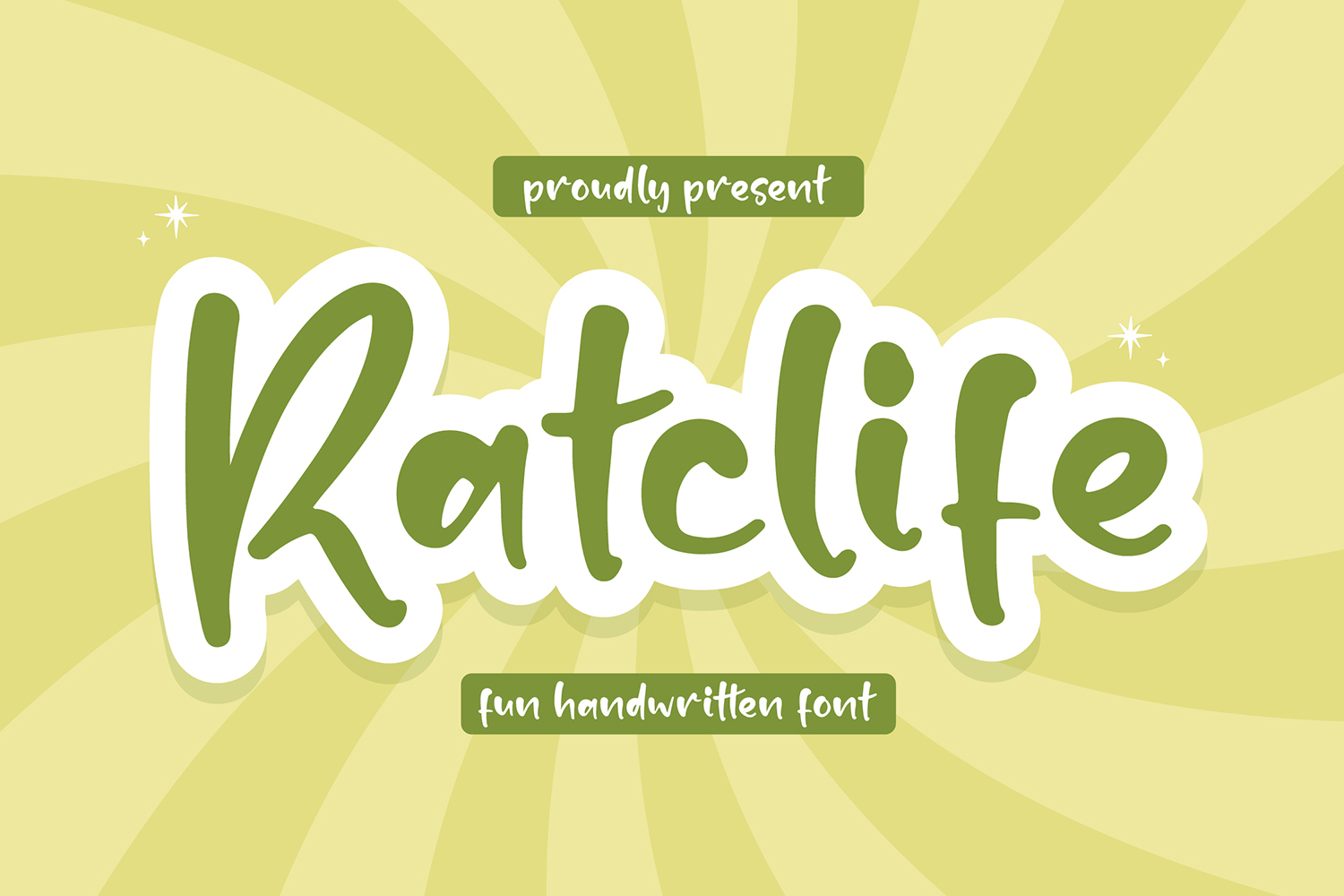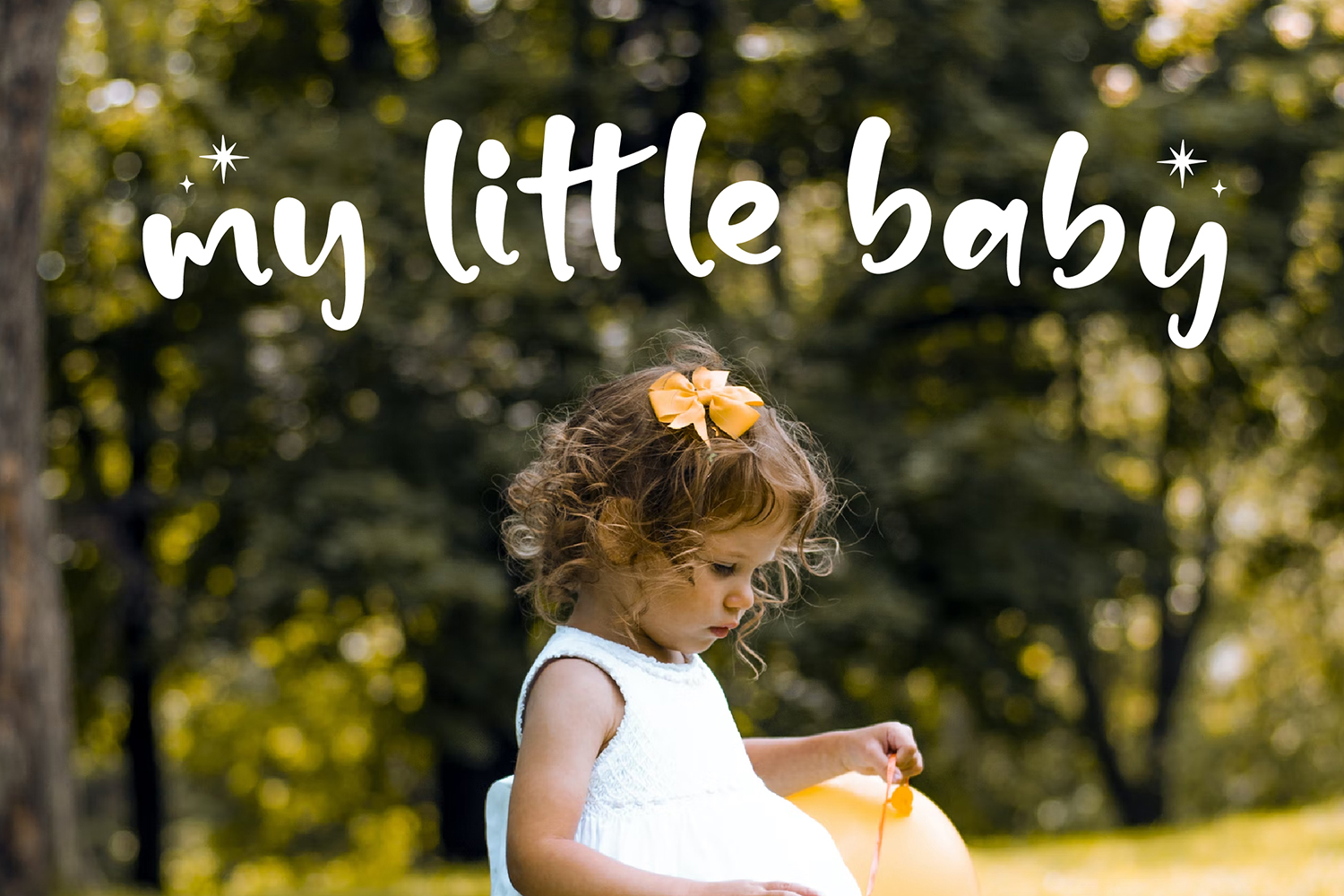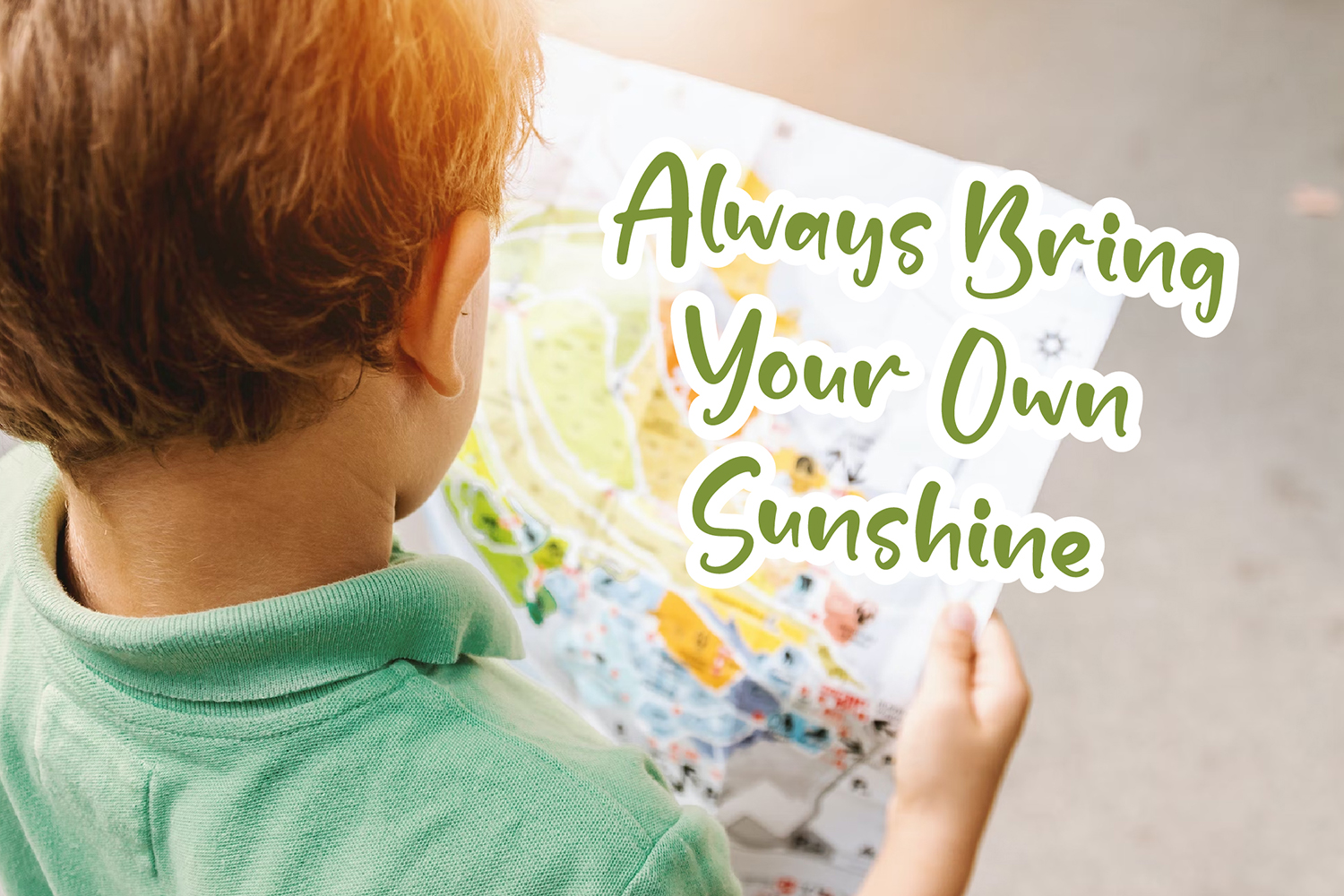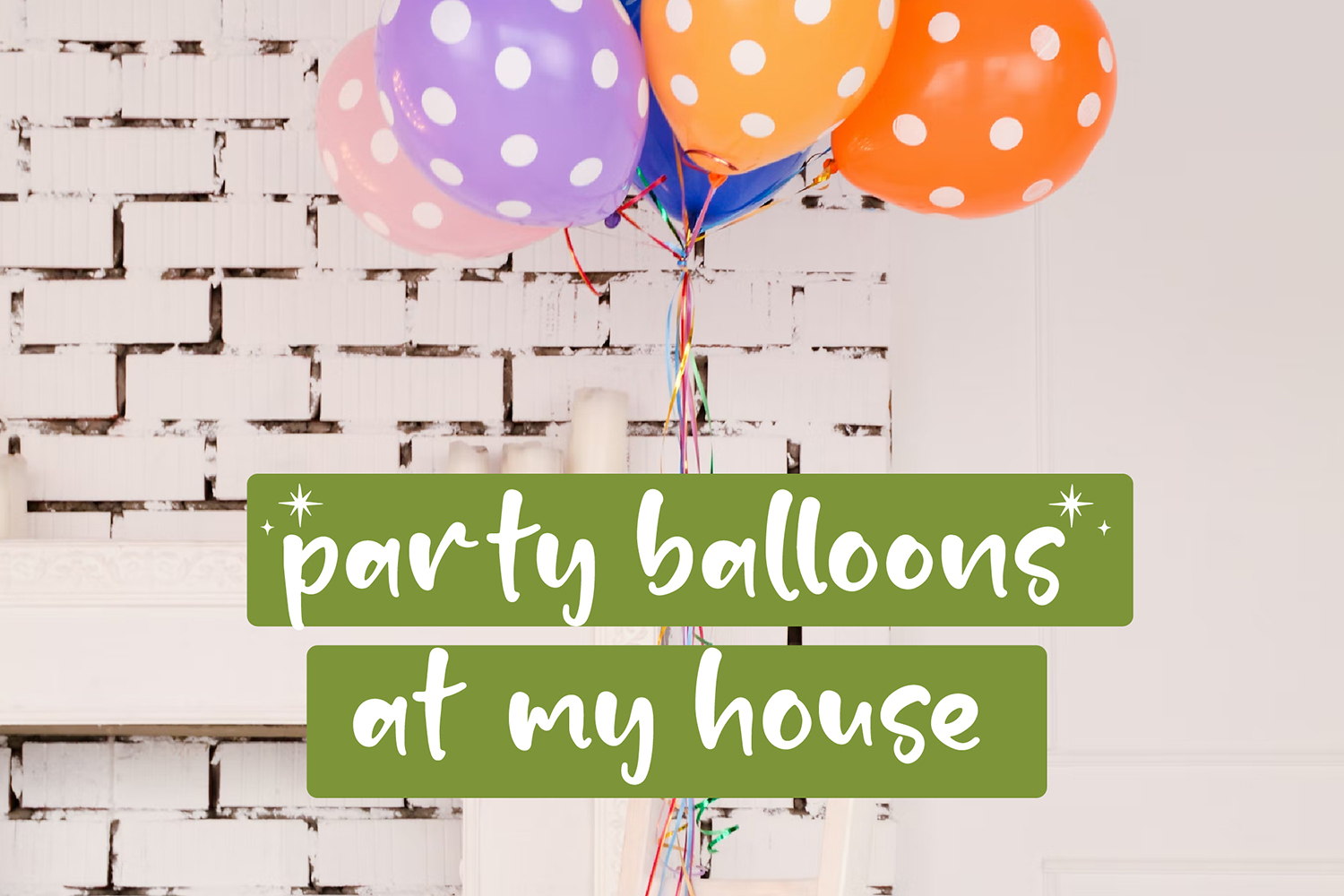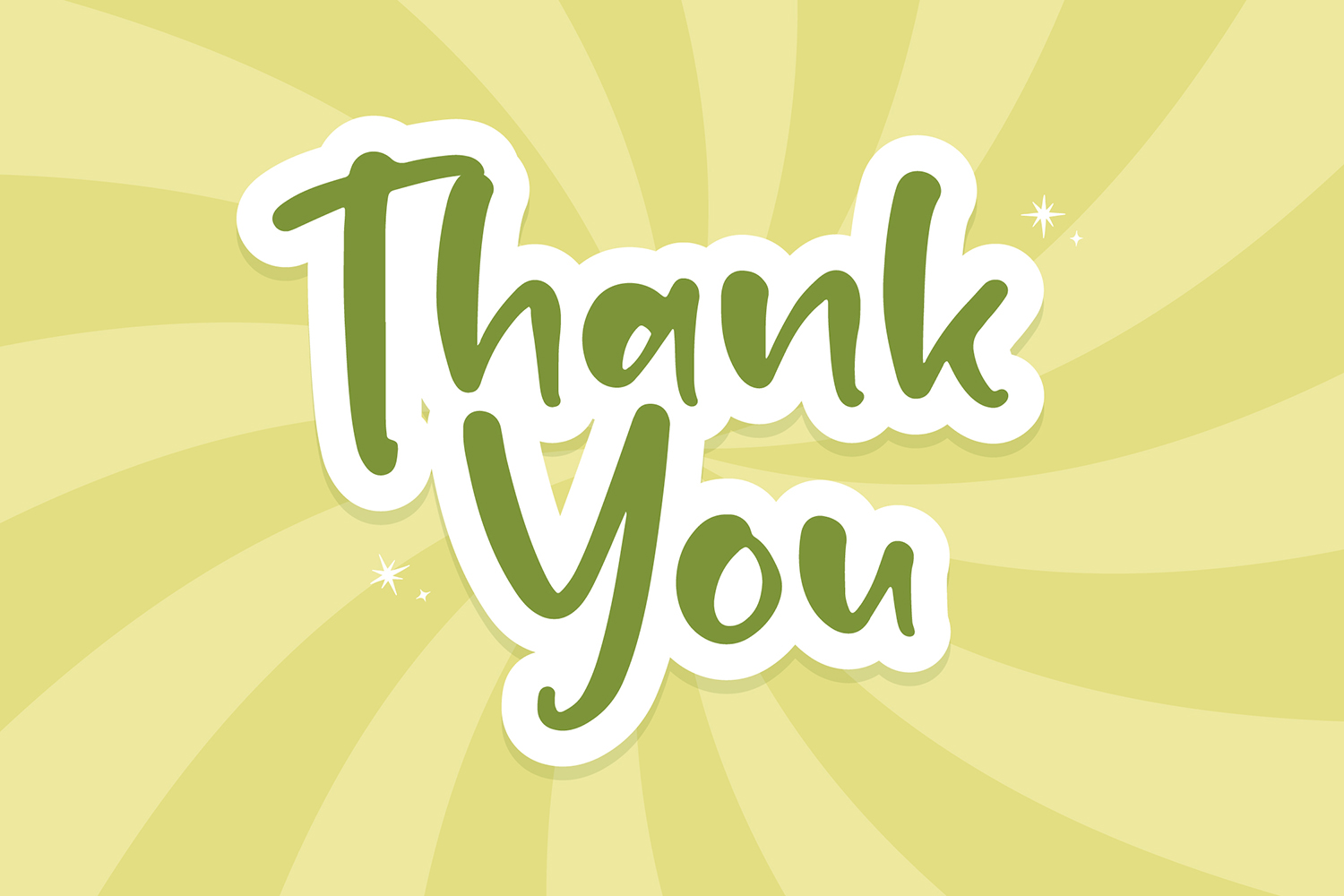
Ratclife Free Font
Introducing Ratclife Free Font – an exuberant and playful handwritten font that radiates pure fun! Whether you’re creating cartoon-related designs, children’s games, inspirational quotes, eye-catching titles, memorable brand names, captivating book covers, vibrant posters, or any project in need of a joyful touch, Ratclife is the perfect choice. Let this bubbly font infuse your creations with boundless joy and charm, leaving a lasting impression on your audience. Embrace the lively spirit of Ratclife and elevate your designs with its delightful flair. Choose Ratclife for an unforgettable burst of creativity and excitement. Ratclife Free Font and unlock endless possibilities for creating stunning and classy designs. This free typeface was designed by a talented Timur type. If you like it don’t forget to check out the full version.